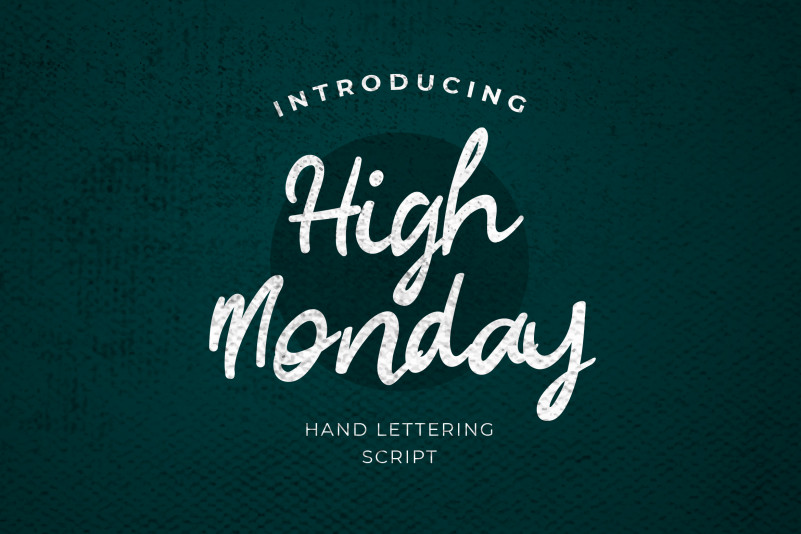
High Monday Font
High Monday is casual handmade font that is perfect for any modern design including logo, branding, posters, wedding invitations. It’s also could be good for both fun and semi-formal text.